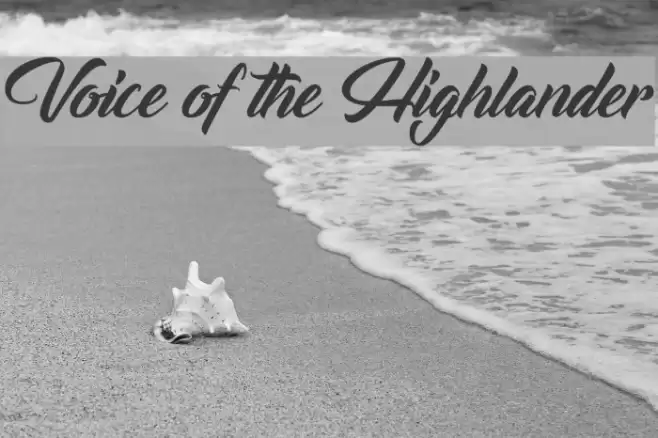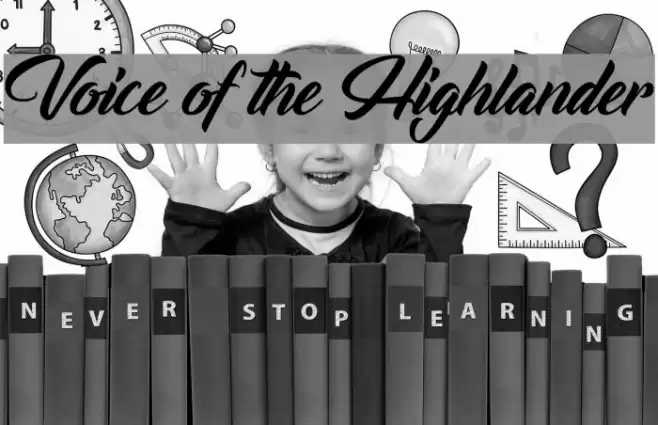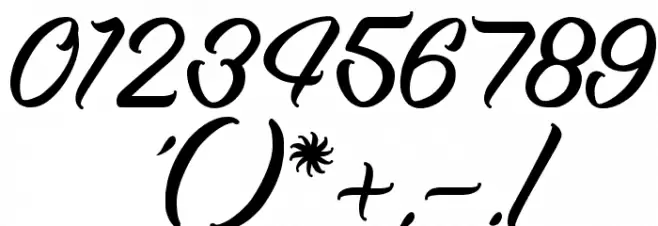
Voice of the Highlander Font
Voice of the Highlander Description
This font features a dynamic and flowing script style, characterized by its elegant and cursive letterforms. The uppercase letters exhibit a graceful and slightly slanted appearance, while the lowercase letters maintain a consistent fluidity, enhancing the overall aesthetic. The numerals are designed with a similar flair, ensuring a cohesive look across all characters. Special characters are thoughtfully integrated, maintaining the script's artistic integrity. The font's design is both sophisticated and approachable, making it suitable for a variety of creative applications.
A dynamic and flowing script font with elegant cursive letterforms from Uncategorized fonts.
- Proposed Projects: Ideal for wedding invitations, greeting cards, branding projects, and elegant packaging designs.
- Overall Style: Elegant
- Use Case: Logos, Invitations, Decorative text